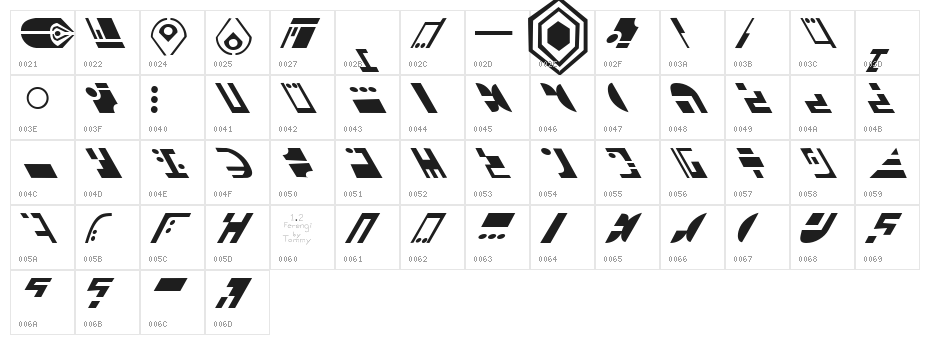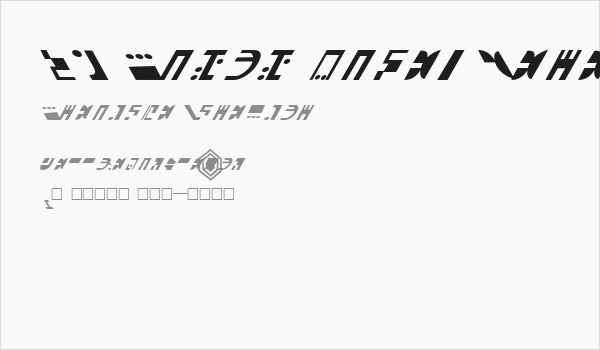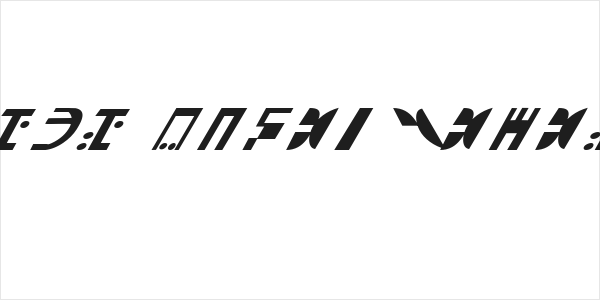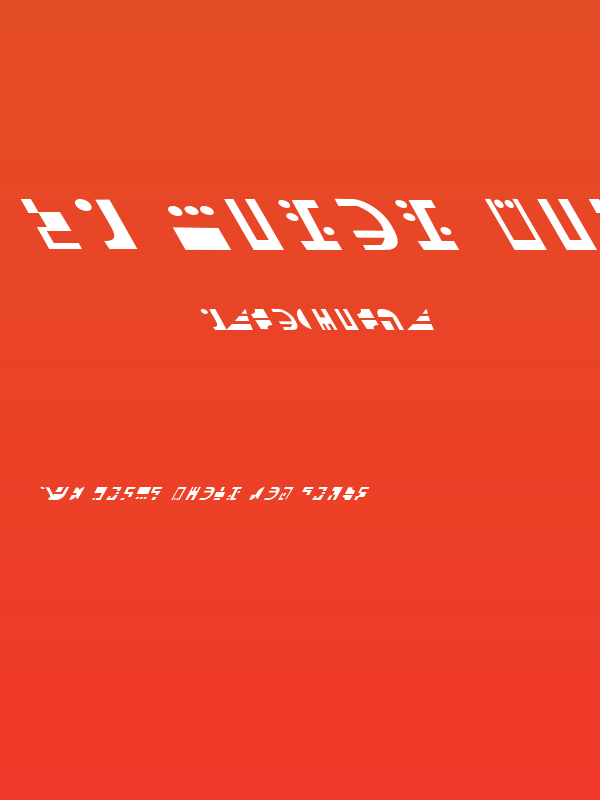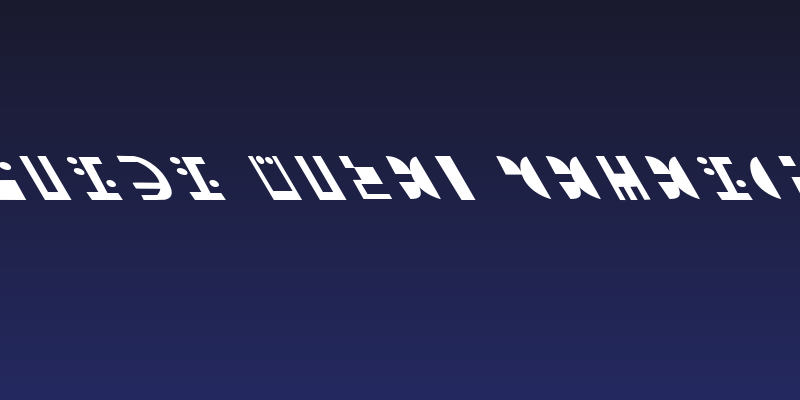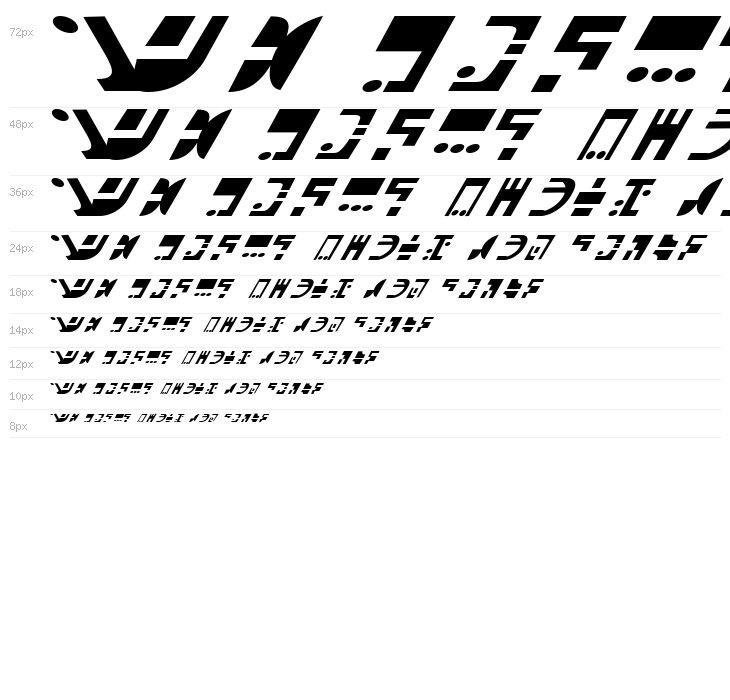
ST Canon based Ferengi 1L Font
ST Canon based Ferengi 1L Description
This font is a highly stylized, decorative typeface with a futuristic and alien-like appearance. The characters are composed of bold, geometric shapes with sharp angles and curves, creating a sense of movement and energy. The design incorporates a mix of solid and fragmented elements, giving it a unique, cryptic look. The font is reminiscent of science fiction themes, making it ideal for projects that require a sense of mystery or otherworldliness. Its distinct style is eye-catching and memorable, suitable for creative and unconventional design applications.
| Overall Style | Futuristic, Sci-Fi |
| Use Case | Logos, Posters, Titles |
| Proposed Projects | Ideal for sci-fi themed designs, video game interfaces, movie posters, or any project requiring a futuristic or alien aesthetic. |